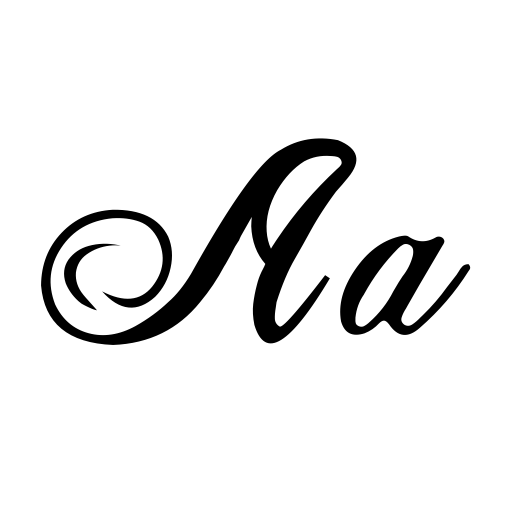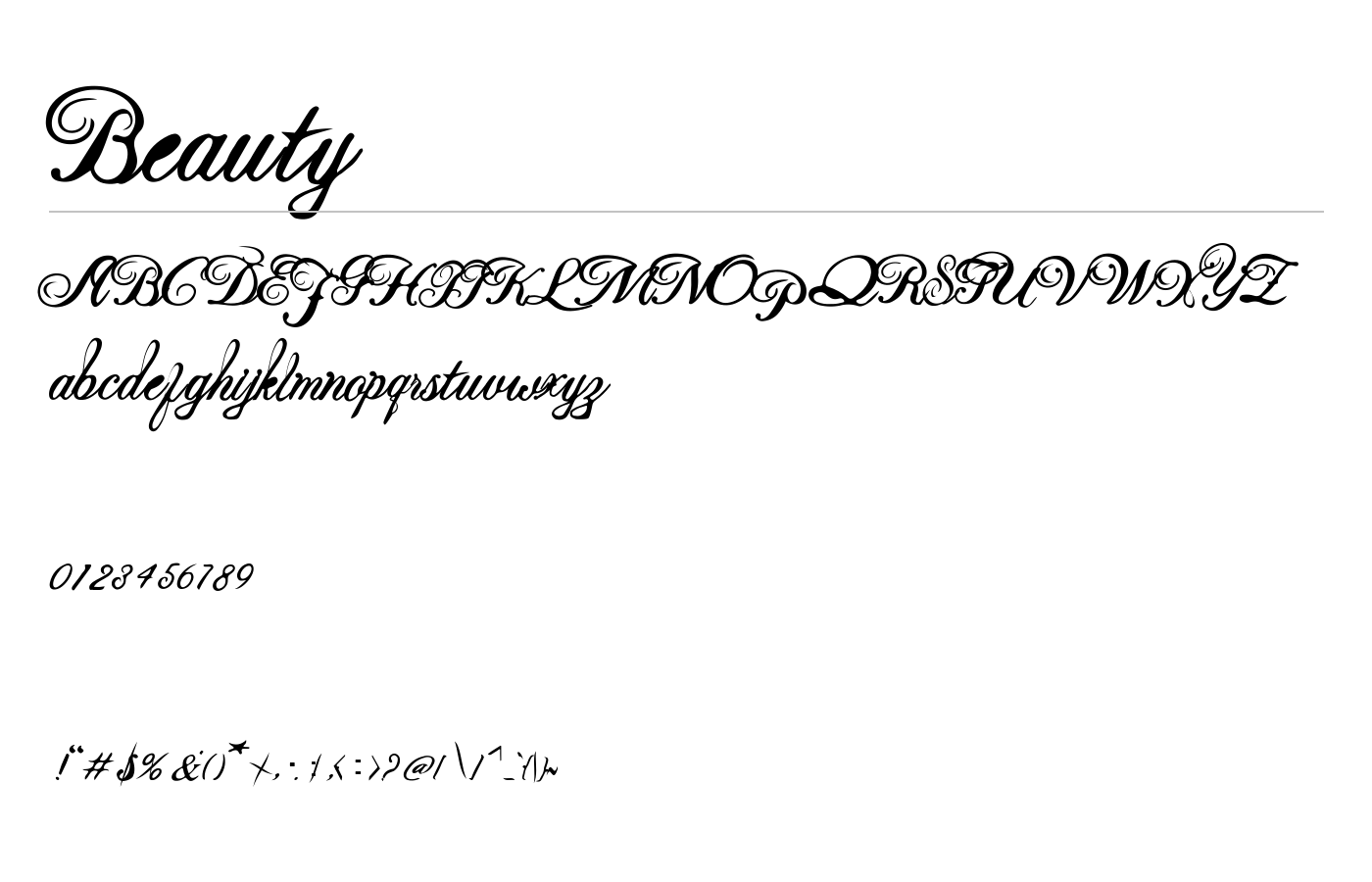
Beauty Font is an elegant, highly decorative script typeface featuring flowing, calligraphic strokes with luxurious swirls and flourishes, especially prominent in the uppercase letters. Its fine weight and delicate curves make it ideal for sophisticated branding, invitations, and fashion-related designs where a graceful and refined personality is desired. This font excels in headlines and display uses, adding a touch of classic beauty and charm to any project.
Beauty Font
About Beauty Font
| Font family | Beauty Font |
| Designer | ASEP SUNANDAR |